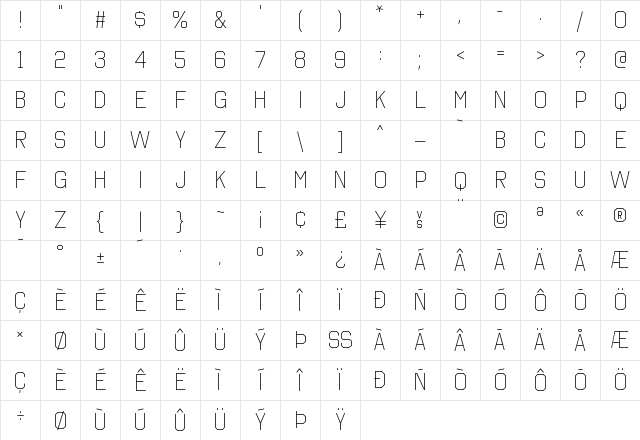
Octin College Light
Design Context for Octin College
Octin College brings high-energy athletic personality to the page - its confident, muscular forms are built for impact. Its slender proportions lend an understated elegance to any composition.
Pro Tip: Use Octin College in all-caps headlines where its athletic energy can fully express itself. Pair with a solid, simple sans for supporting text.